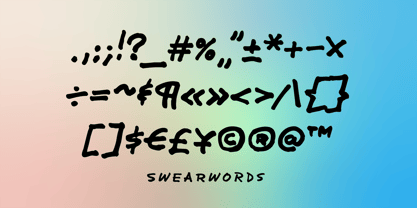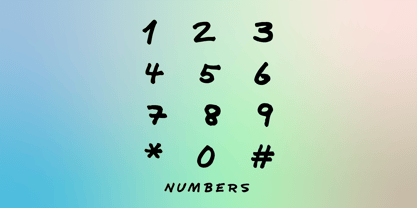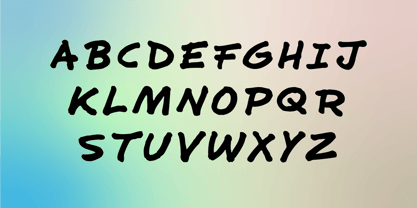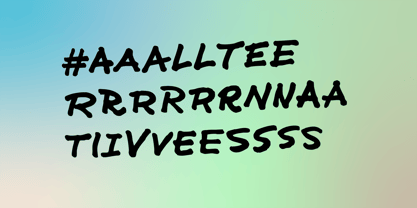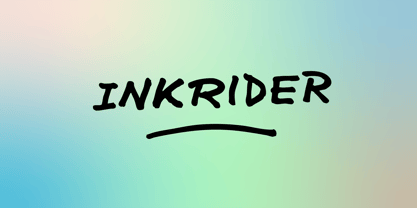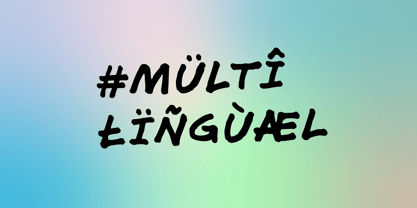
Inkrider
Inkrider is drawn with ink. On paper. It said “permanent” on the marker, but my fingers were almost ink-free after 30 minutes of rinsing and washing. A bit red, though. Anyway, a problem you won’t have with the fully digital font. Good for quotes or signs (try to avoid Live Laugh Love, though …). With multilingual support and a variety of alternative letters, this font offers the flexibility you need for diverse design projects, crafted by LukerType.